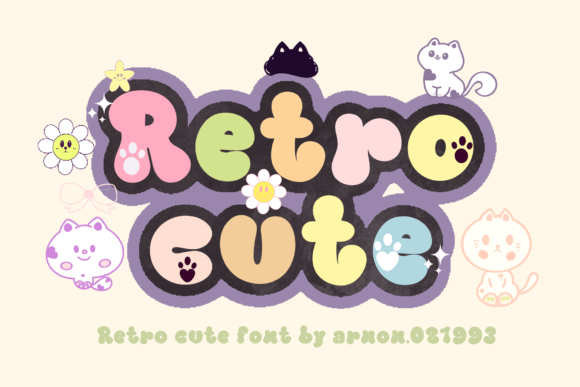
Journey into a world of charming nostalgia with Retro Cute Font, a delightful display font family that captures the essence of childhood dreams and playful hearts. Step into a realm where imagination runs wild, and creativity knows no bounds.
Retro Cute Font isn't just a font; it's a gateway to a world of endless possibilities. Perfect for laser engraving, this font transforms ordinary objects into cherished keepsakes, each stroke imbued with a touch of whimsy and charm. Envision your words dancing across wooden plaques, adorning personalized mugs, or adding a touch of enchantment to your handmade greeting cards.
With Retro Cute Font, you'll never run out of creative avenues to explore. Design eye-catching logos that exude a playful vibe, create unforgettable business cards that leave a lasting impression, or craft heartfelt quotes that resonate with your audience. Let your imagination soar as you design posters that pop with personality, T-shirts that speak to the child within, and mugs that bring smiles to faces.
This font is a canvas for your creativity, a brush dipped in nostalgia, and a palette bursting with cheerful hues. Whether you're a seasoned designer or just starting your creative journey, Retro Cute Font will be your trusted companion, guiding you through a world of limitless possibilities. Embrace the magic of Retro Cute Font and let your imagination run wild.